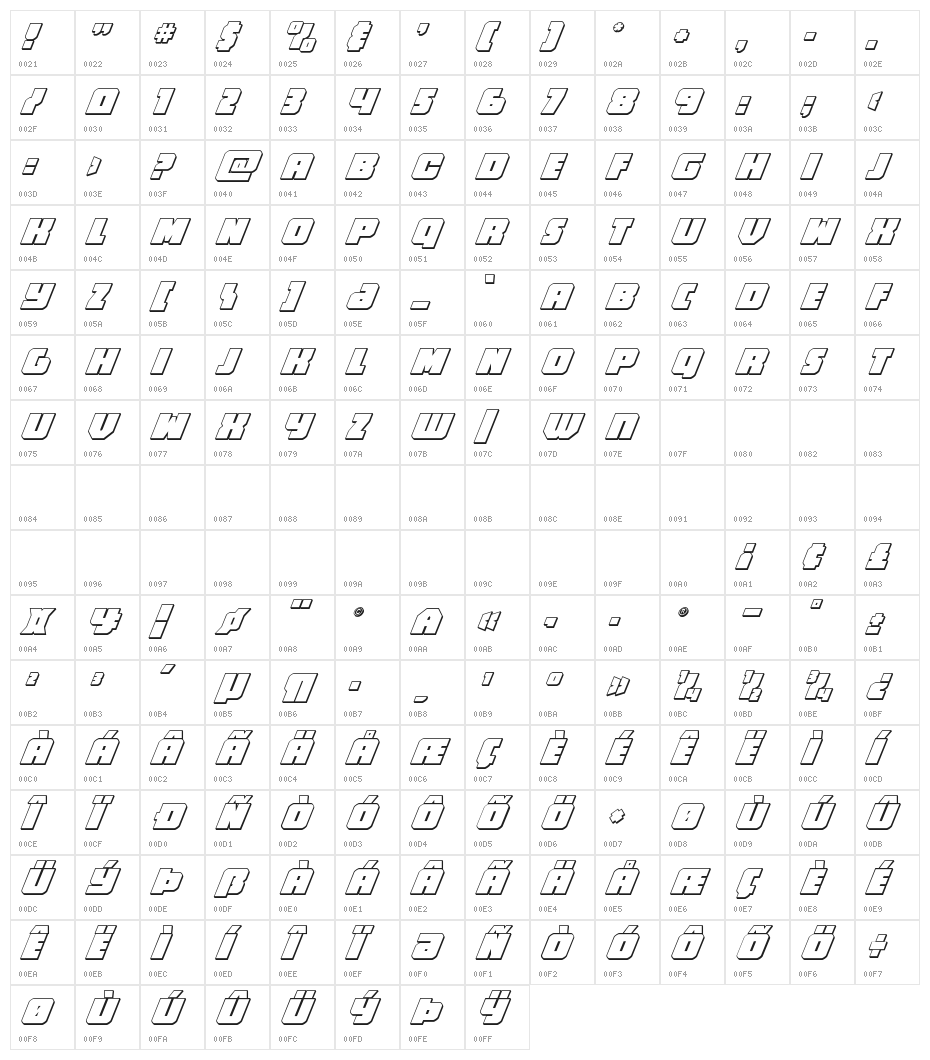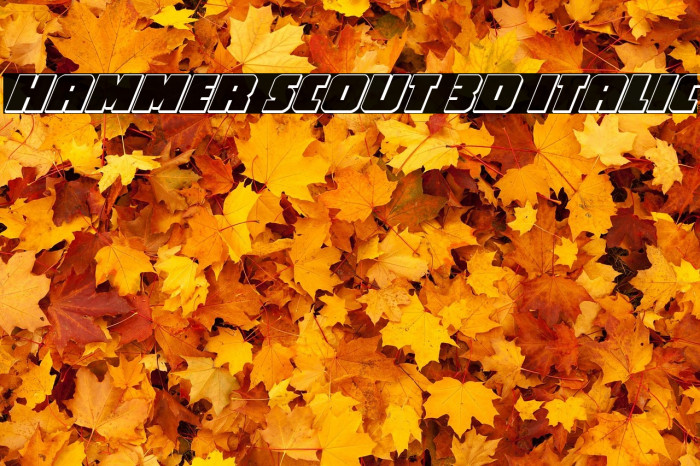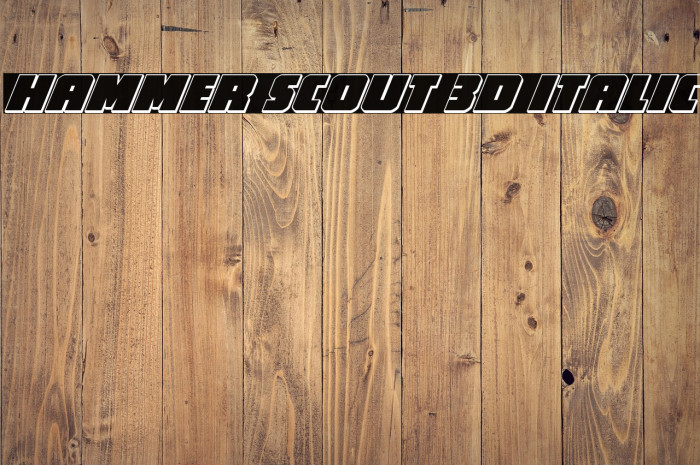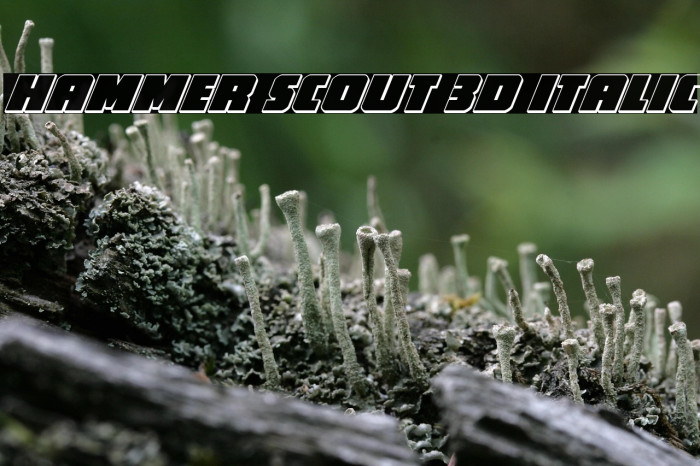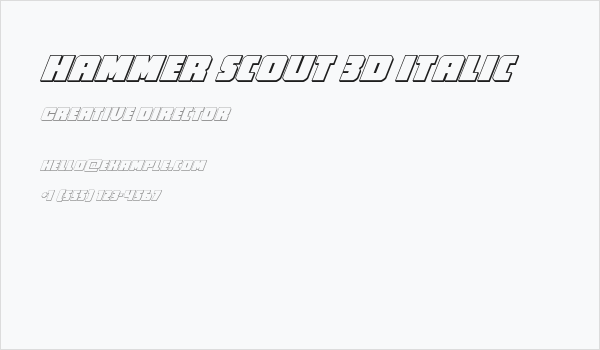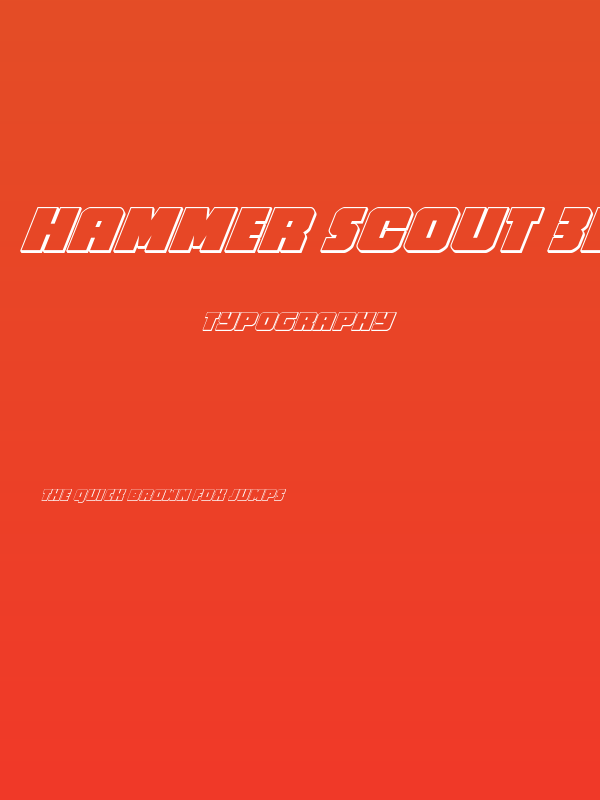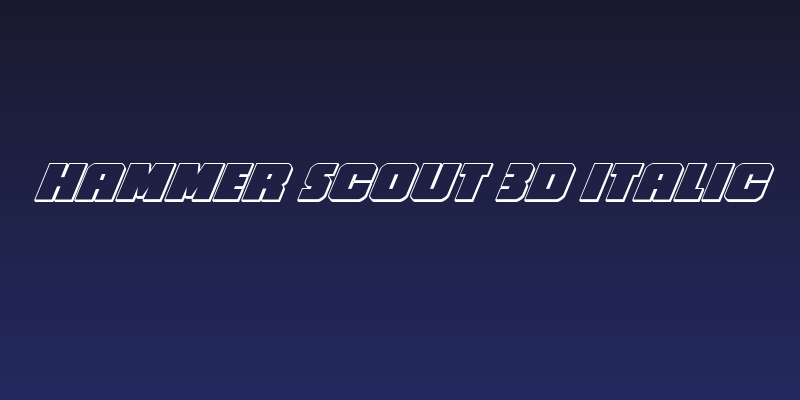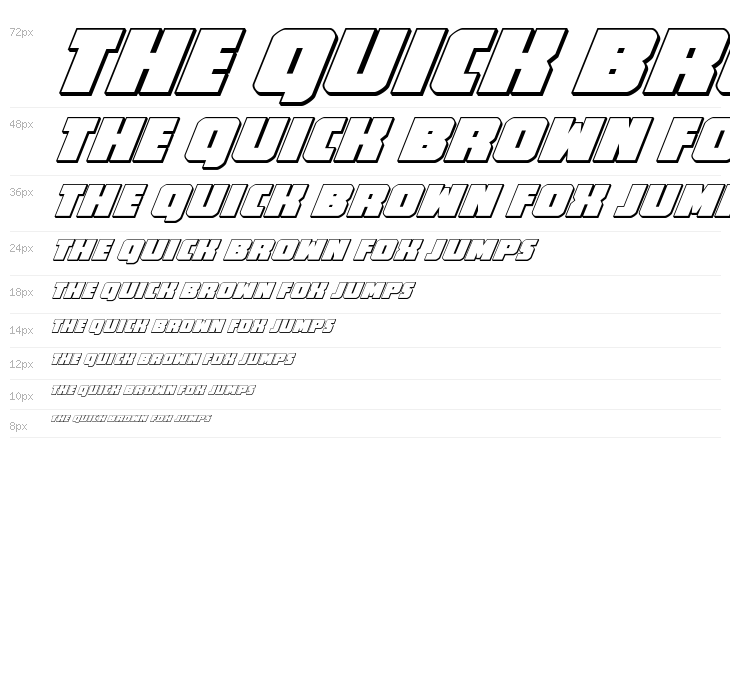
Hammer Scout 3D Italic Font
Hammer Scout 3D Italic Description
This font features a bold, three-dimensional design with a strong italic slant, giving it a dynamic and futuristic appearance. The characters are outlined, creating a sense of depth and movement. The uppercase and lowercase letters maintain a consistent style, with sharp angles and a blocky structure. The numbers and special characters follow the same design principles, ensuring uniformity across all glyphs. The overall look is modern and eye-catching, suitable for projects that require a bold statement.